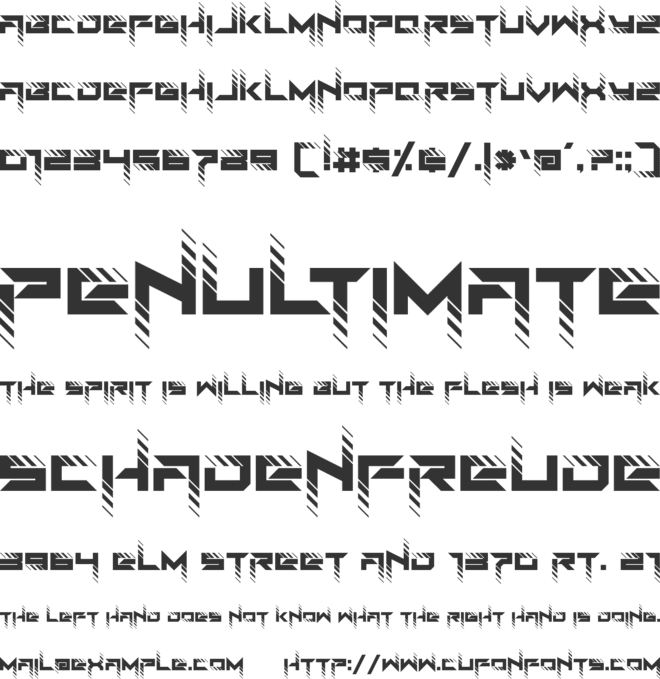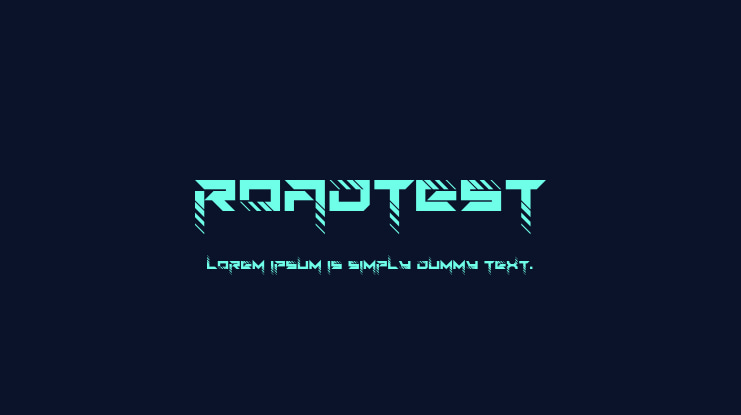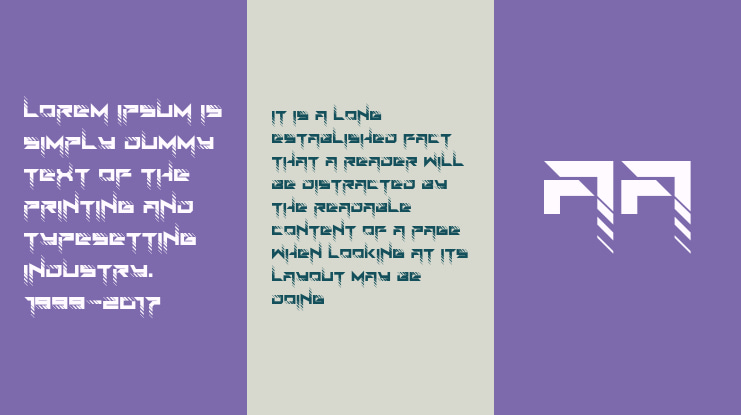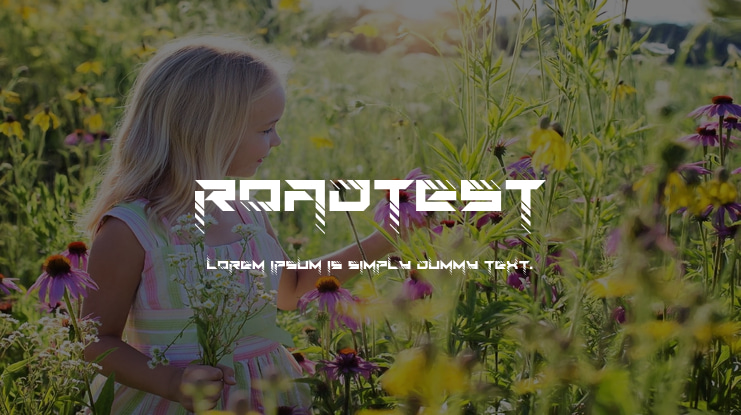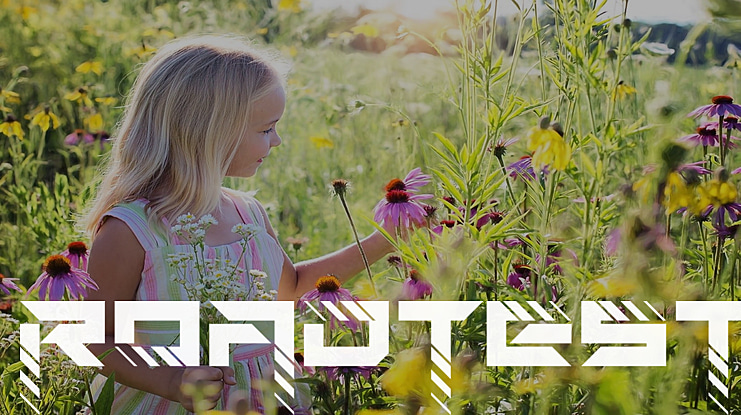
RoadTest Font Family
Jéson Garnica
RoadTest is a very attractive display font. It can be used for various purposes but is best for brand names, clothing lines and logos.